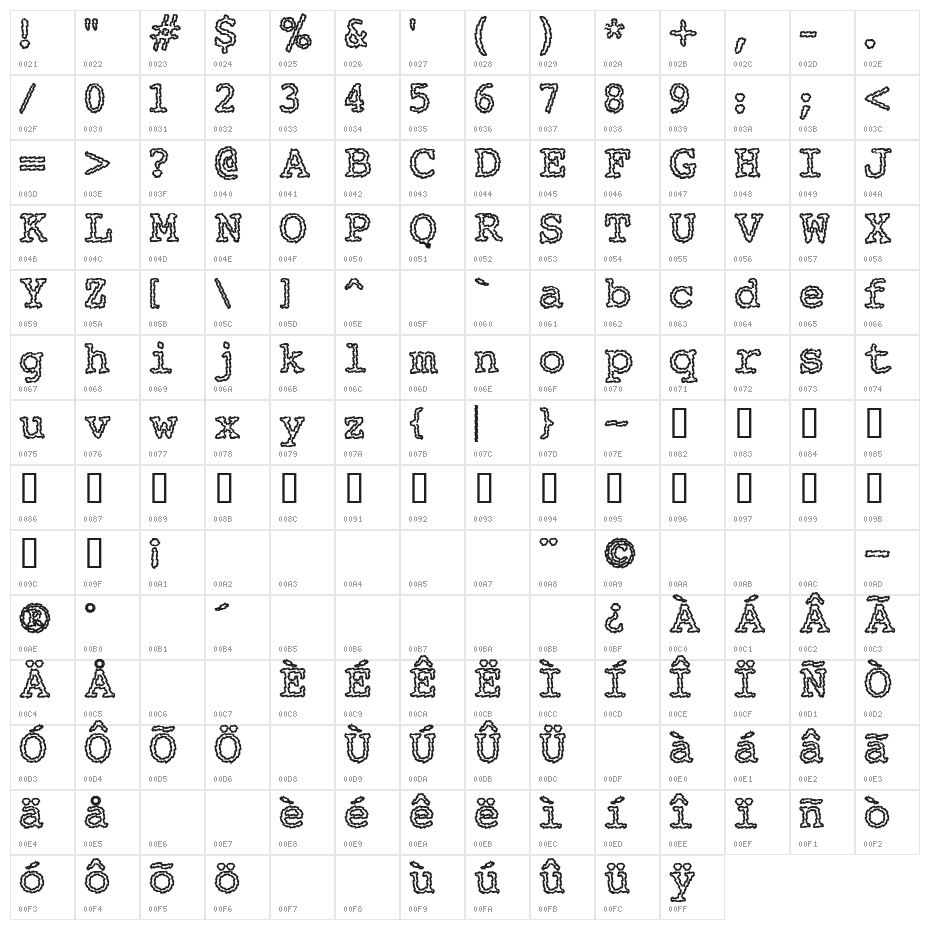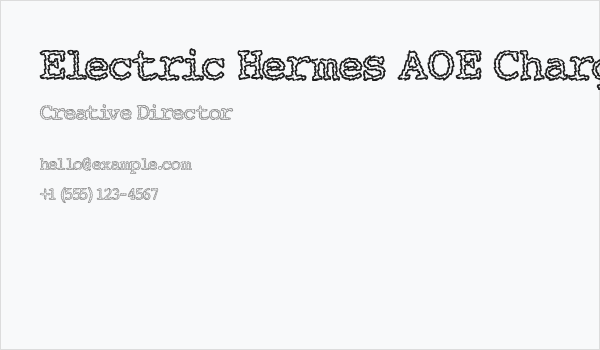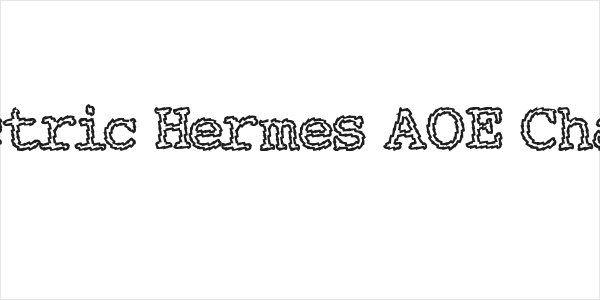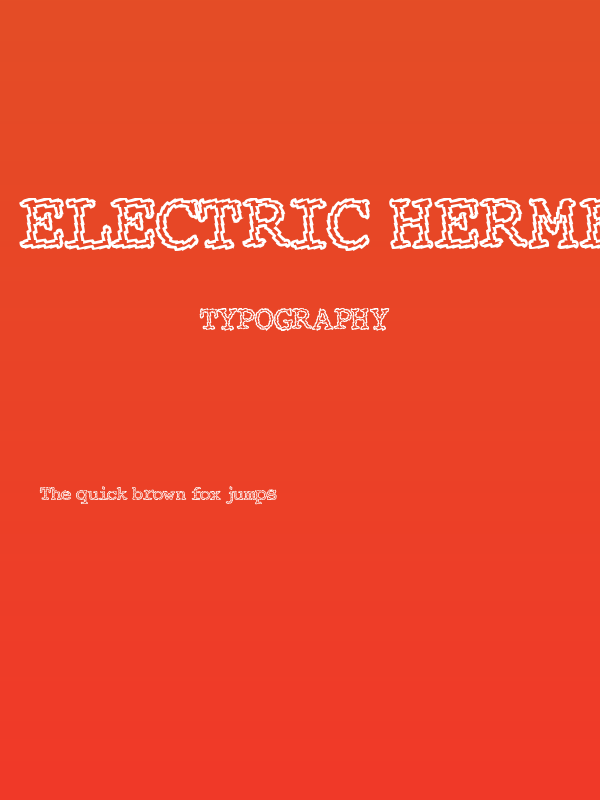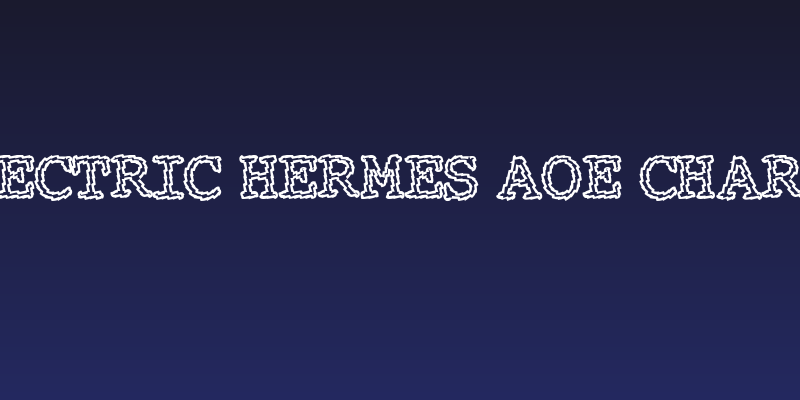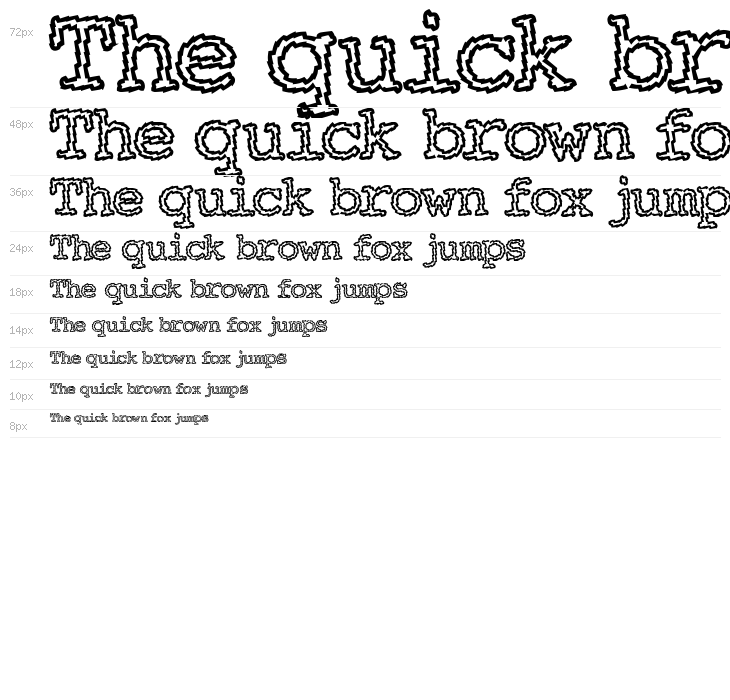
Electric Hermes AOE Charge Font
Electric Hermes AOE Charge Description
This font features a unique, electrifying outline that gives each character a dynamic and energetic appearance. The bold, jagged edges create a sense of movement and excitement, making it stand out in any design. The uppercase and lowercase letters maintain a consistent style, with the uppercase being slightly more pronounced. Numbers and special characters are equally stylized, ensuring a cohesive look across all text elements. The font's playful yet bold nature makes it ideal for projects that require a touch of creativity and flair.
| Proposed Projects | Ideal for posters, event flyers, video game titles, and creative branding projects. |